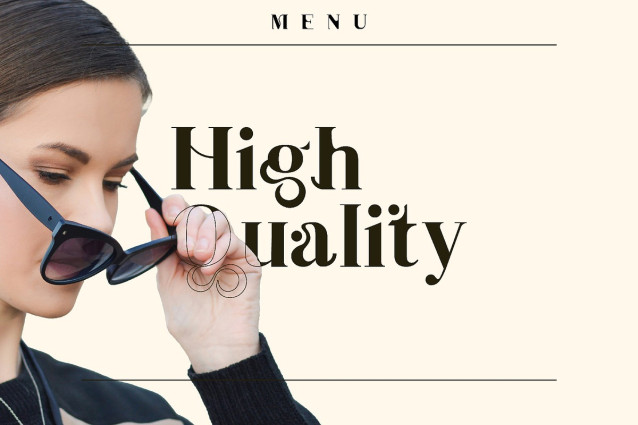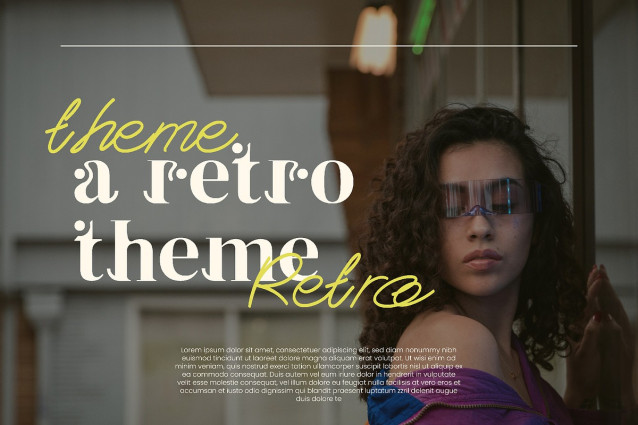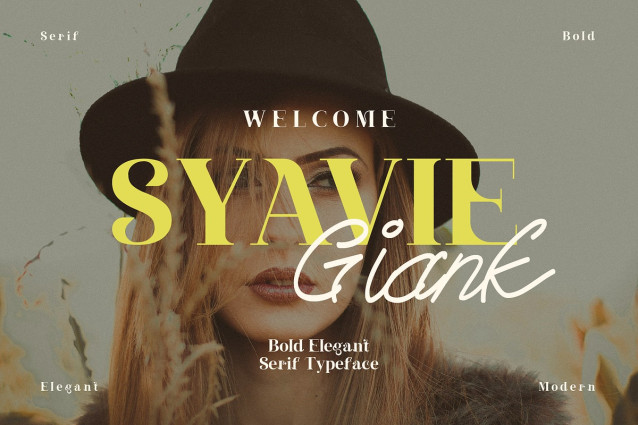
Syavie Giank Font
Syavie Giank Font – a bold and experimental modern serif typeface. The font is characterized by high contrast between thick and thin stems and creative variations in letterforms. Some of the letters are unique and artistically interesting. The letters also feature contemporary artistic touches, with clean cuts or geometric shapes, giving them a modern and futuristic feel. The sharp and pointed serifs give a bold and elegant feel, suitable for brands that want to stand out and be artistic.